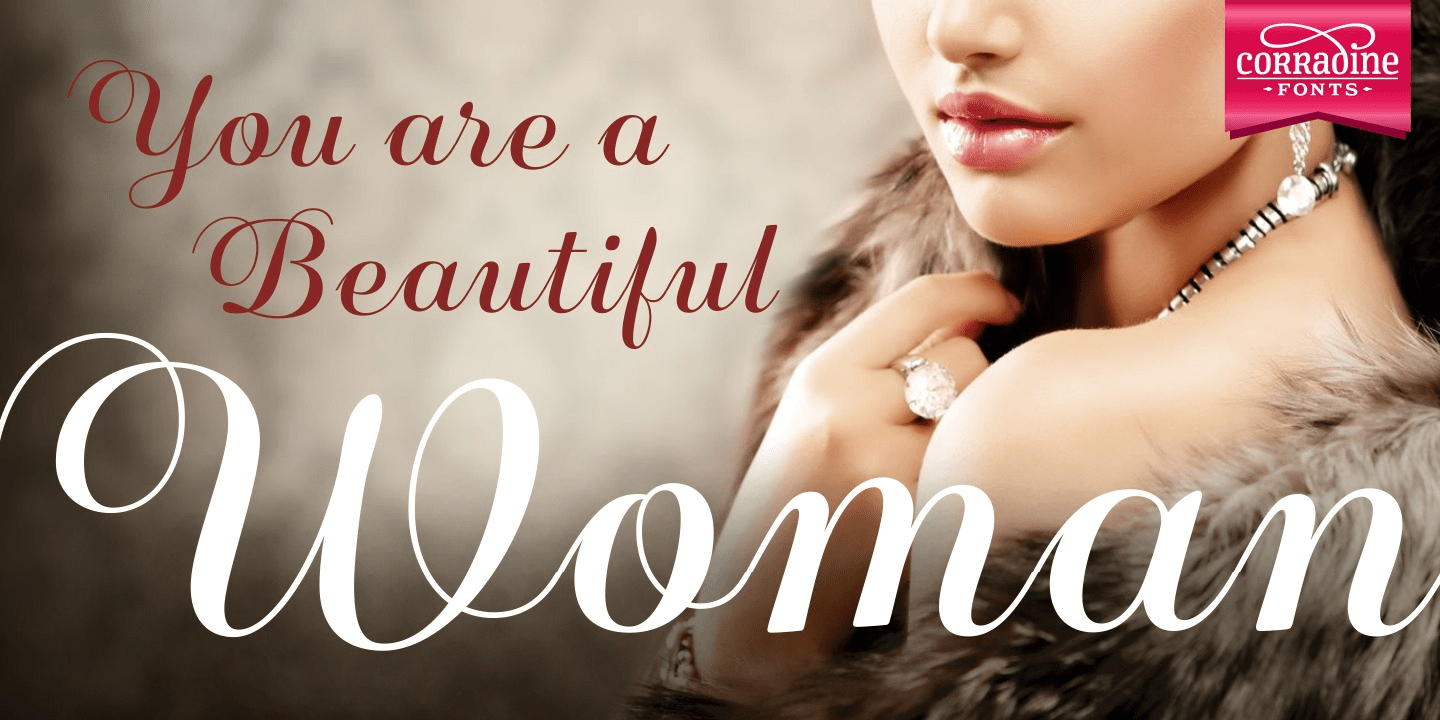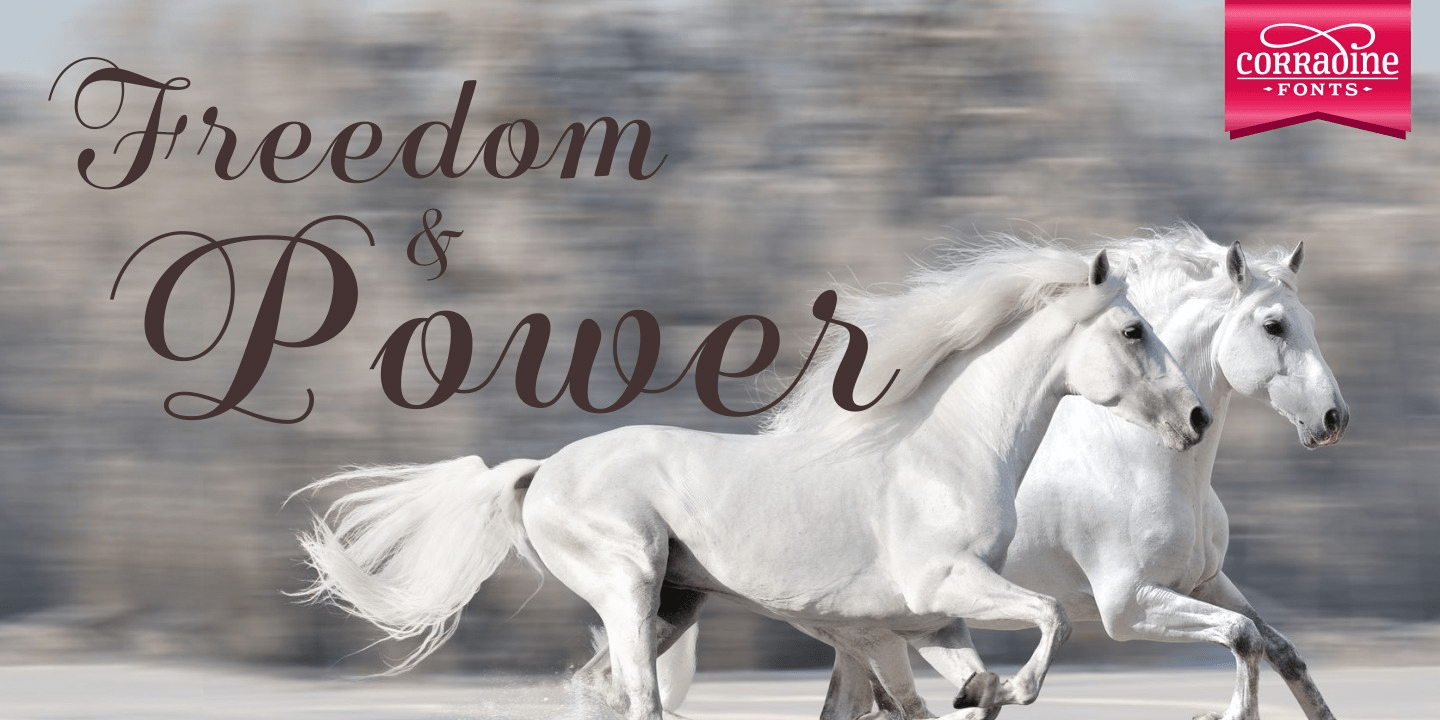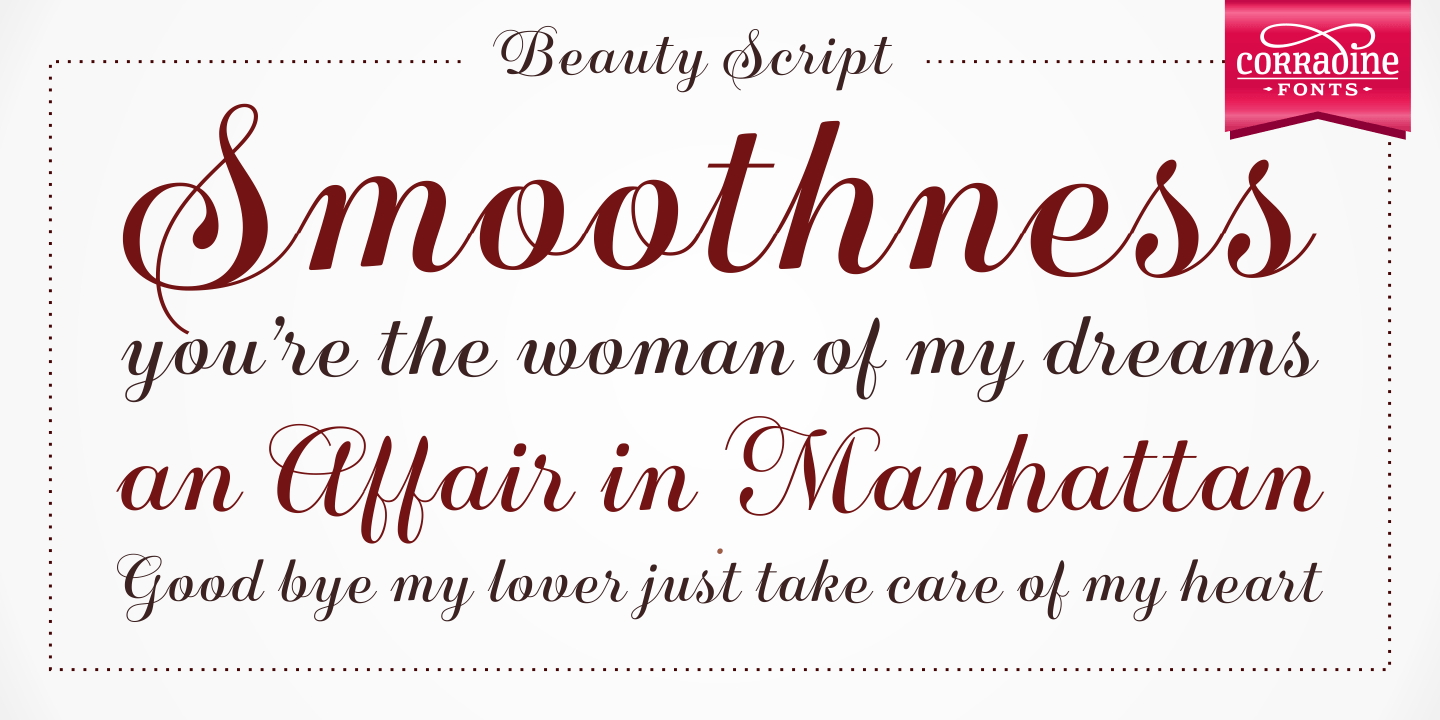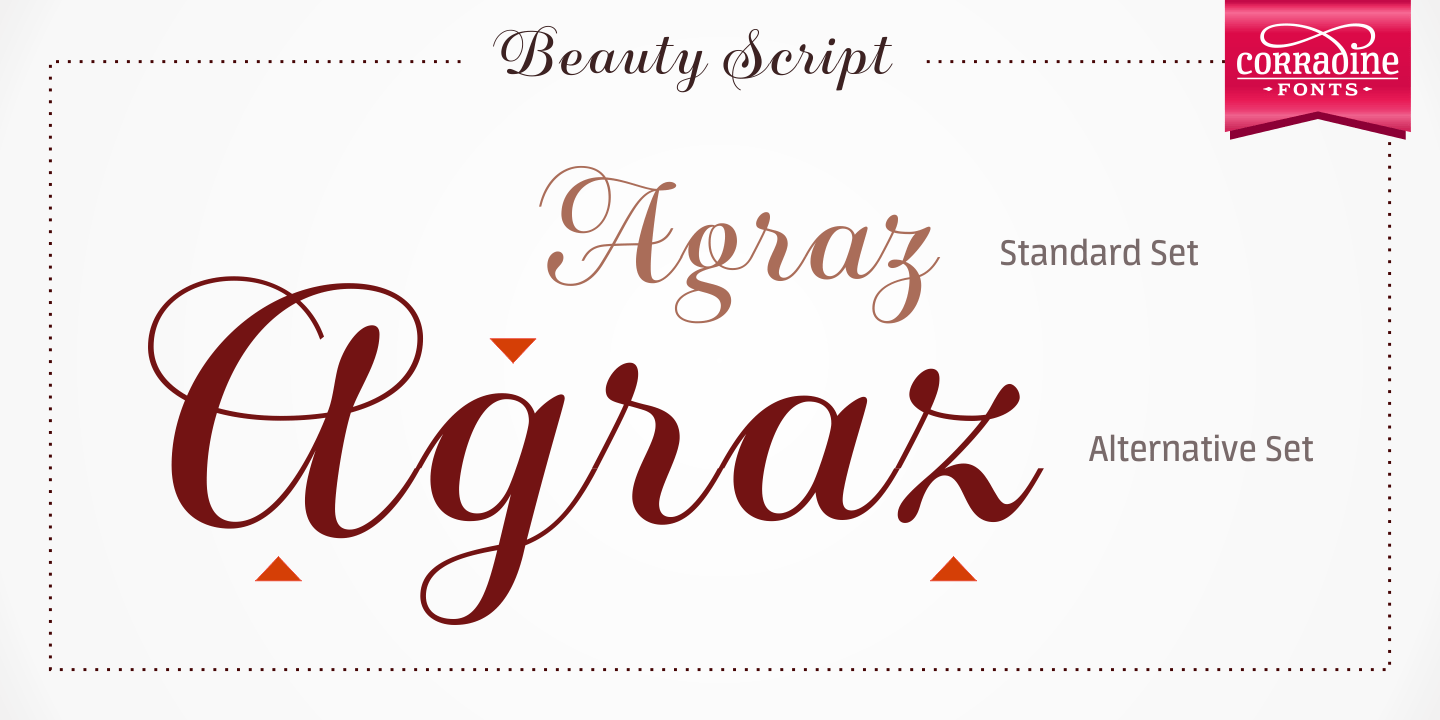
About Beauty Script
Beauty Script is a modern interpretation of the classic formal script style. You could notice in it a special feeling due its subtle wavy rhythm to mimic the natural movement of handwritten calligraphy. Because its strong contrast and the fluidity of…